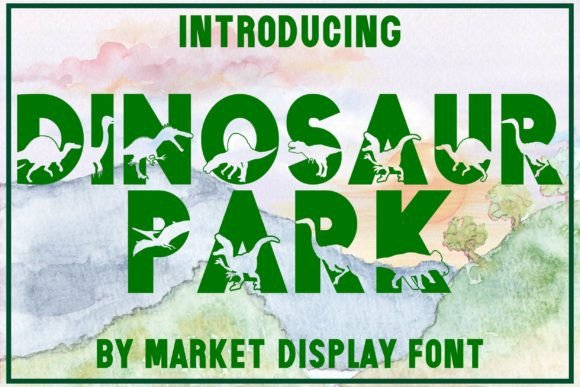
Dinosaur Park Font: A Fun and Chunky Lettered Decorative Font
The world of typography is vast and exciting, with a multitude of fonts available to cater to various design needs. Among these, the Dinosaur Park font stands out as a unique and engaging choice, perfect for crafty projects that require a touch of playfulness and whimsy. In this article, we’ll explore the features and benefits of the Dinosaur Park font, and how it can elevate your designs to new heights.
What is Dinosaur Park Font?
Dinosaur Park is a fun and chunky lettered decorative font that features lovely dinosaurs as ornaments. This original look is sure to appeal to a wide range of crafty ideas, from letterheads and titles to stationery. The font’s design is inspired by the prehistoric world, bringing a sense of adventure and nostalgia to your designs.
Key Features of Dinosaur Park Font
- Unique and playful design: The font features dinosaurs as ornaments, adding a touch of whimsy to your designs.
- Chunky and bold letters: The font’s letters are chunky and bold, making it perfect for titles, headings, and emphasis text.
- High-quality and original design: The font is designed with high-quality and original artwork, ensuring a professional look and feel.
- Multipurpose use: The font can be used for a variety of design projects, including letterheads, titles, stationery, and more.
Benefits of Using Dinosaur Park Font
The Dinosaur Park font offers several benefits to designers and crafty enthusiasts. Some of the advantages of using this font include:
- Instant recognition: The font’s unique design ensures instant recognition and attention-grabbing capabilities.
- Emotional connection: The font’s playful and nostalgic design can evoke emotions and create a connection with your audience.
- Versatility: The font can be used for a wide range of design projects, from formal to informal and playful to professional.
- Easy to read: Despite its chunky design, the font is easy to read and understand, making it perfect for body text and titles.
Design Ideas Using Dinosaur Park Font
The Dinosaur Park font can be used for a variety of design projects, including:
- Letterheads and titles: Use the font to create eye-catching letterheads and titles for your documents and designs.
- Stationery and greeting cards: Add a touch of whimsy to your stationery and greeting cards with the font’s playful design.
- Signs and posters: Use the font to create attention-grabbing signs and posters for events, promotions, and announcements.
- Digital graphics and animations: The font can be used to create engaging digital graphics and animations for social media, websites, and more.
Tips for Using Dinosaur Park Font Effectively
To get the most out of the Dinosaur Park font, here are some tips to keep in mind:
- Use it sparingly: While the font is playful and attention-grabbing, it’s best to use it sparingly to avoid overwhelming your design.
- Pair it with complementary fonts: Pair the font with complementary fonts to create visual interest and hierarchy in your design.
- Experiment with colors and textures: Experiment with different colors and textures to add depth and visual interest to your design.
- Keep it legible: Ensure that the font is legible and easy to read, especially for body text and smaller sizes.
The Dinosaur Park font is a fun and chunky lettered decorative font that can add a touch of whimsy and playfulness to your designs. With its unique and original design, high-quality artwork, and multipurpose use, this font is perfect for crafty enthusiasts and designers looking to create engaging and attention-grabbing designs. By following the tips and ideas outlined in this article, you can effectively use the Dinosaur Park font to elevate your designs and take them to new heights.